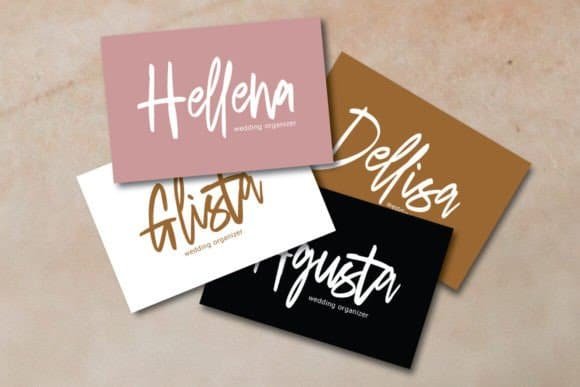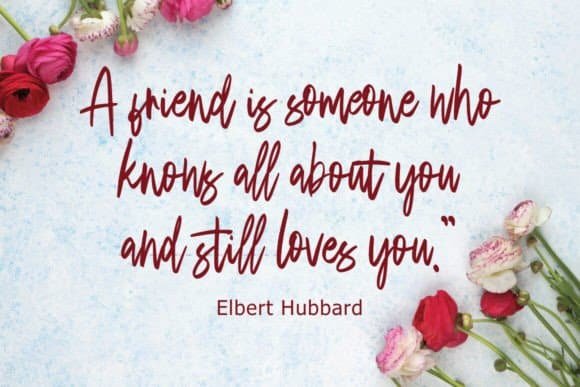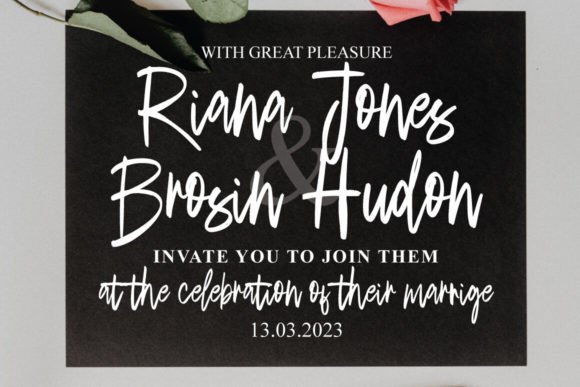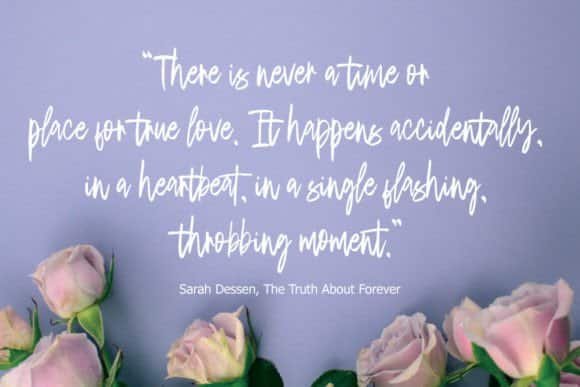
Otsudaki Font
Otsudaki is a handmade signature style font, with decorative characters and a dancing baseline! It is so beautiful on invitation like greeting cards, branding materials, business cards, quotes, posters, and more!!